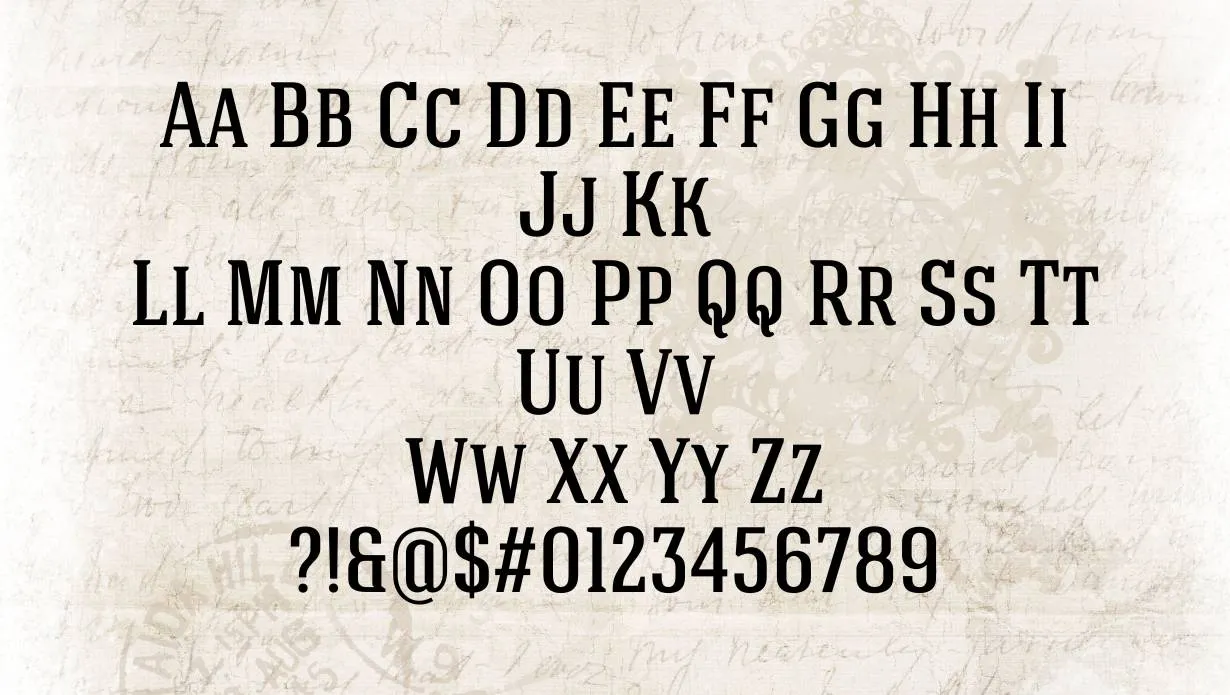
Hagin Font is a bold and attention-grabbing typeface with a vintage flair. It adds a sense of drama and style. This font style is designed by Fontfabric. They have designed this font with the concept of old-style lettering with strong geometrics.
This font is ideal for retro posters, packaging, and designs that need a powerful impact. There are also some similar fonts to this font but, Goudy Old Style Font is the most similar font to this font.
Hagin Font Family